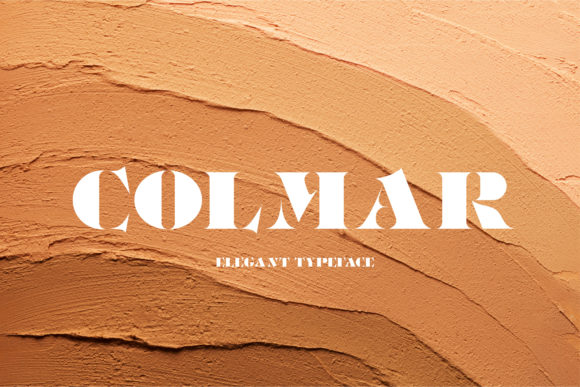
Behold Colmar Font, a creation of Koson.graphic, a font of remarkable distinction and sophistication. Its bold, stylish, and thick lettered structure exudes an air of elegance, making it an exceptional choice for designers seeking to introduce a touch of class to their projects.
With Colmar Font, your creations will radiate an aura of refinement. Its carefully crafted curves and edges evoke a sense of timeless beauty, while its sturdy serifs add a touch of strength and stability. This font commands attention, whether you use it for logos, branding, invitations, or any other project that demands a touch of sophistication.
Step into a world of elegance with Colmar Font. Its versatility knows no bounds, adapting seamlessly to a wide range of design styles, from classic and traditional to modern and contemporary. Whether you're creating a timeless masterpiece or a cutting-edge design, Colmar Font will elevate your work to new heights.
Unleash your creativity and let Colmar Font take center stage. Its bold presence demands attention, while its graceful curves add a touch of femininity. Experiment with different colors and sizes to create striking headlines, captivating logos, or eye-catching social media graphics.
Colmar Font is more than just a font; it's an investment in your design arsenal. Its timeless appeal ensures that your creations will remain relevant and stylish for years to come. Join the ranks of discerning designers who appreciate the finer things in life and embrace the beauty of Colmar Font.